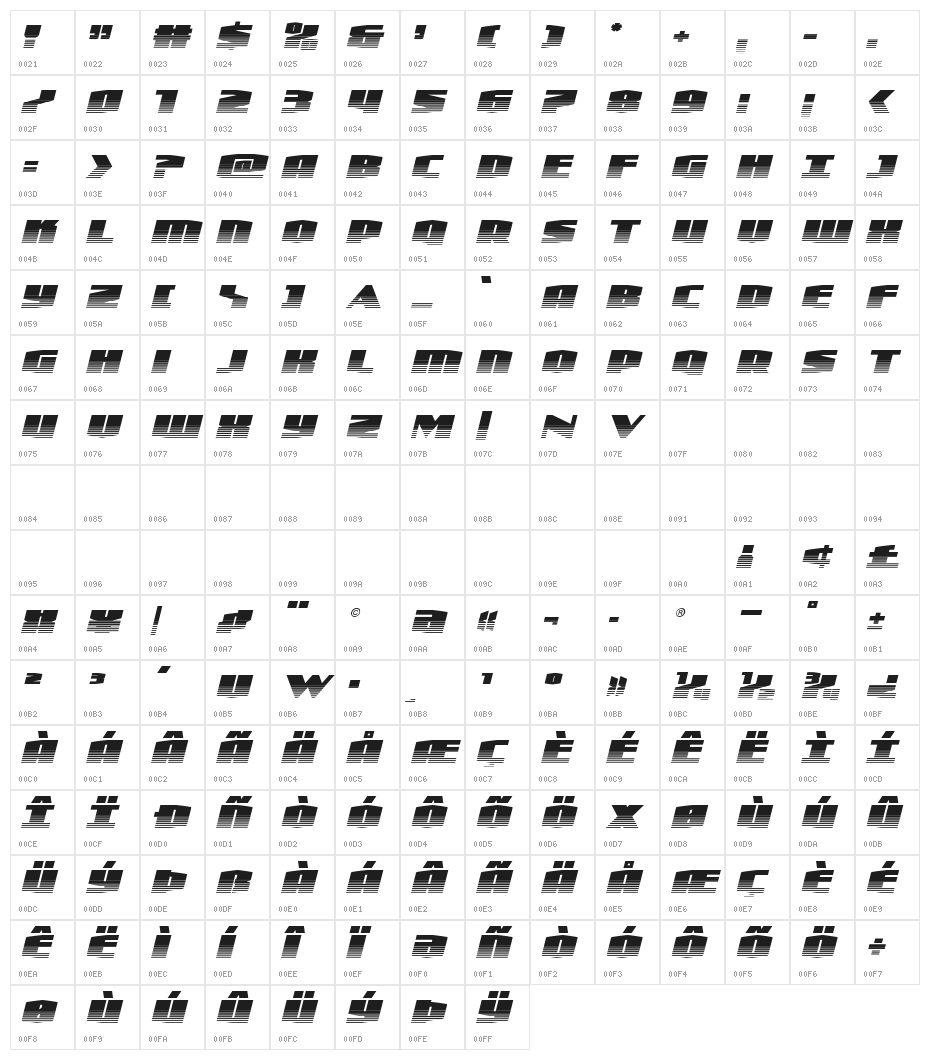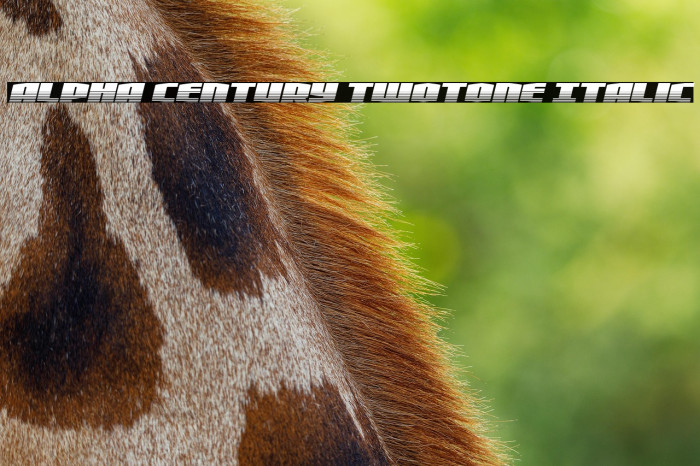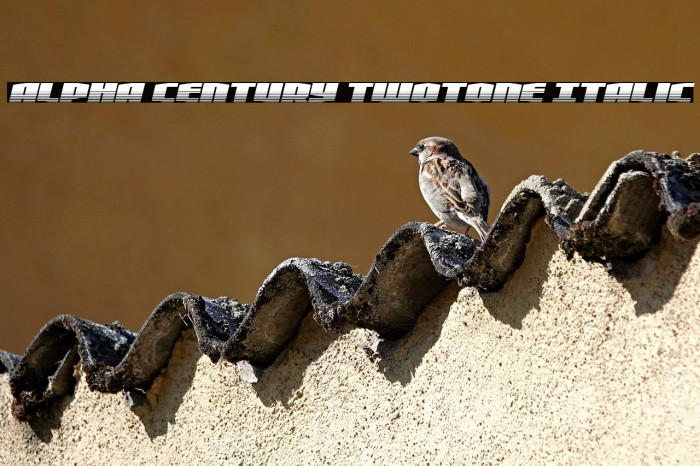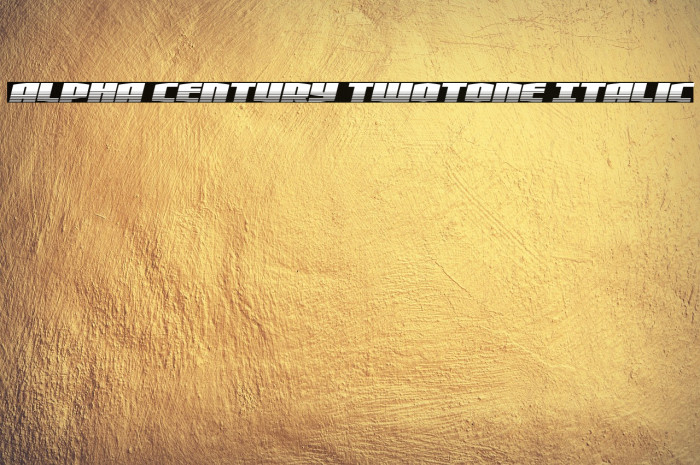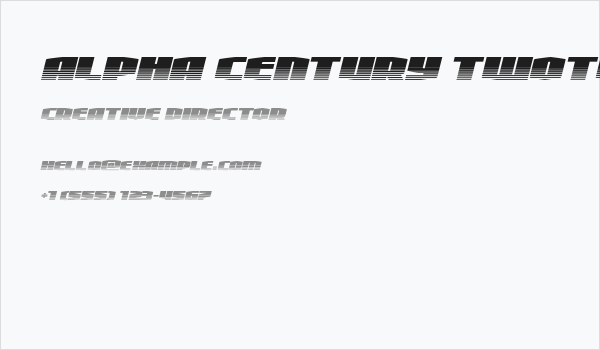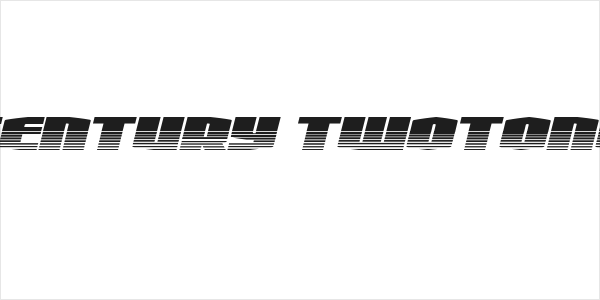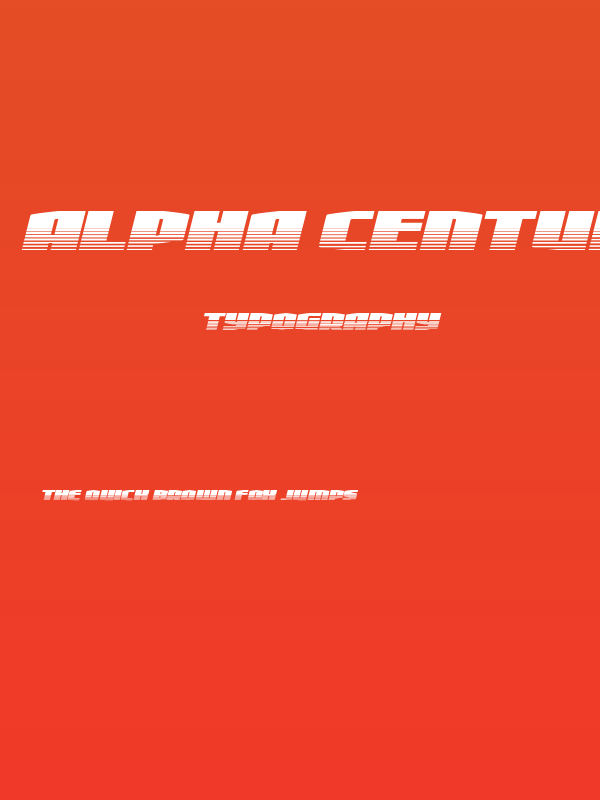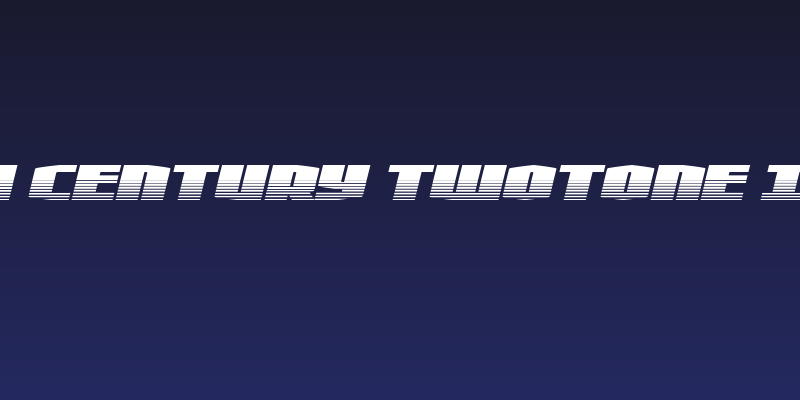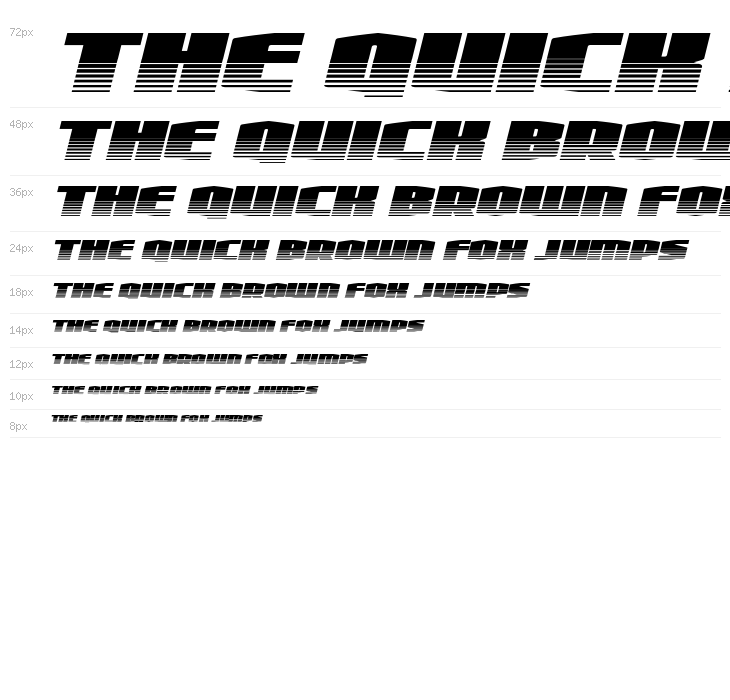
Alpha Century Twotone Italic Font
Alpha Century Twotone Italic Description
This font features a bold, futuristic design with a distinct two-tone effect. The characters are italicized, giving them a dynamic and forward-leaning appearance. Each letter is composed of horizontal lines that create a sense of movement and speed, making it ideal for modern and tech-oriented designs. The uppercase and lowercase letters maintain a consistent style, while the numbers and special characters are equally bold and striking. The font's unique aesthetic is perfect for projects that require a strong visual impact.
| Proposed Projects | Ideal for tech branding, sci-fi posters, video game titles, and futuristic event flyers. |